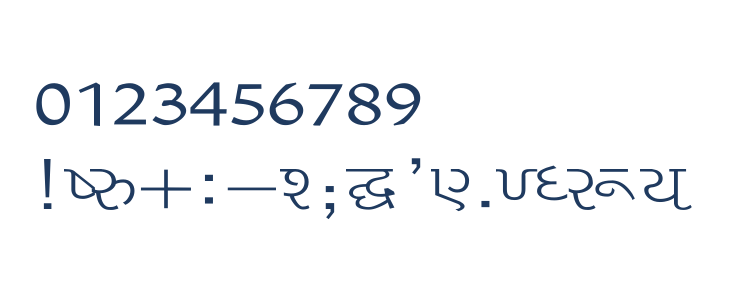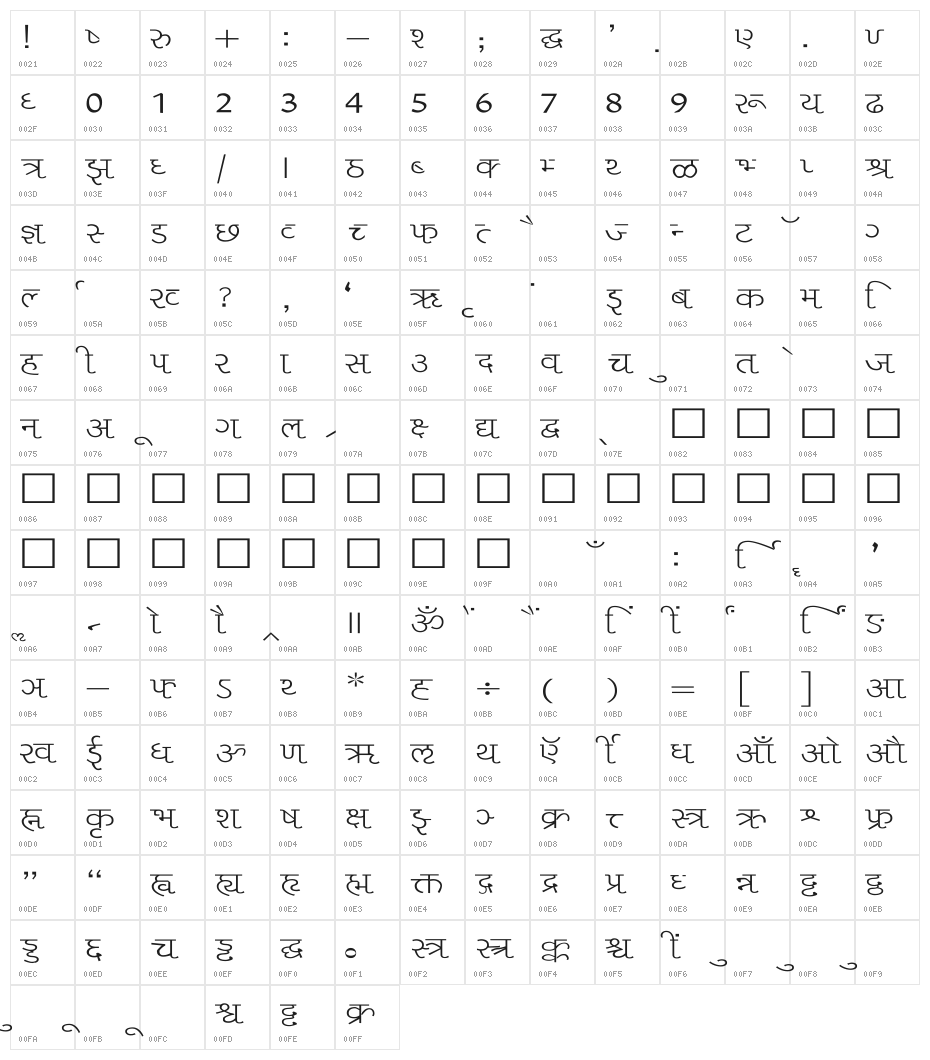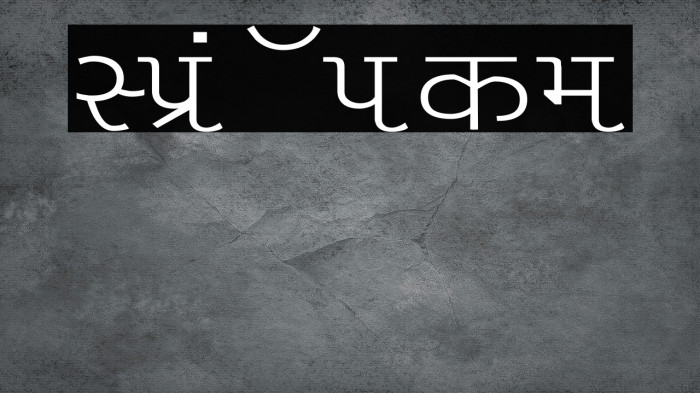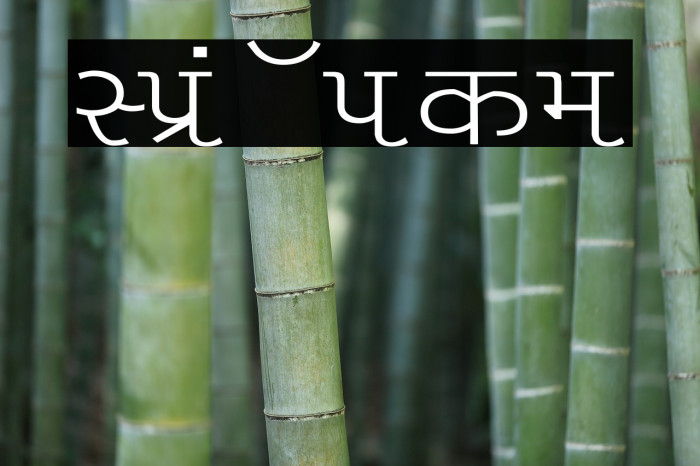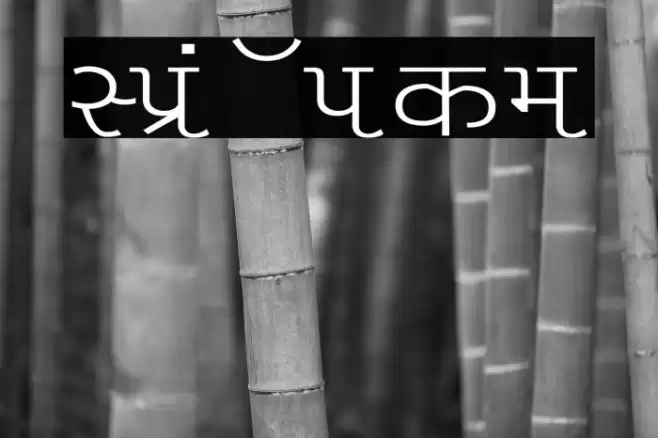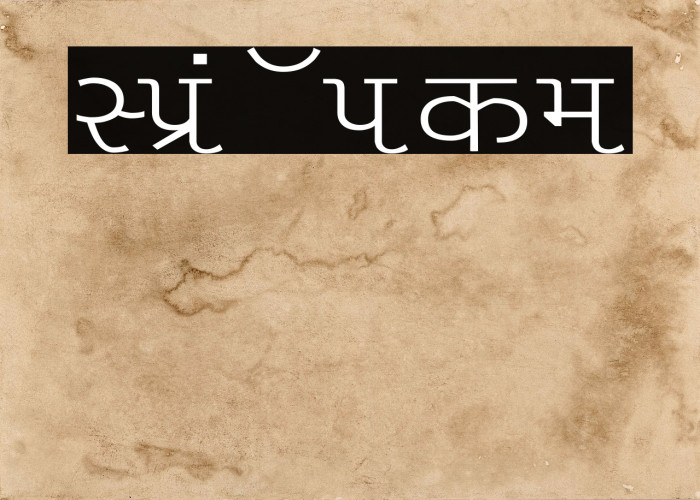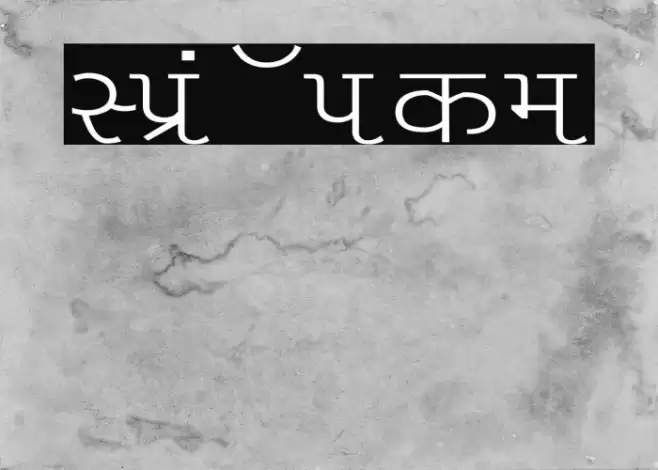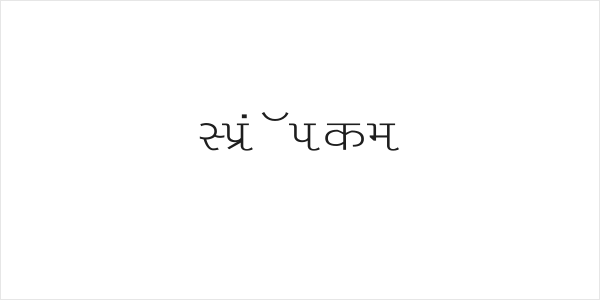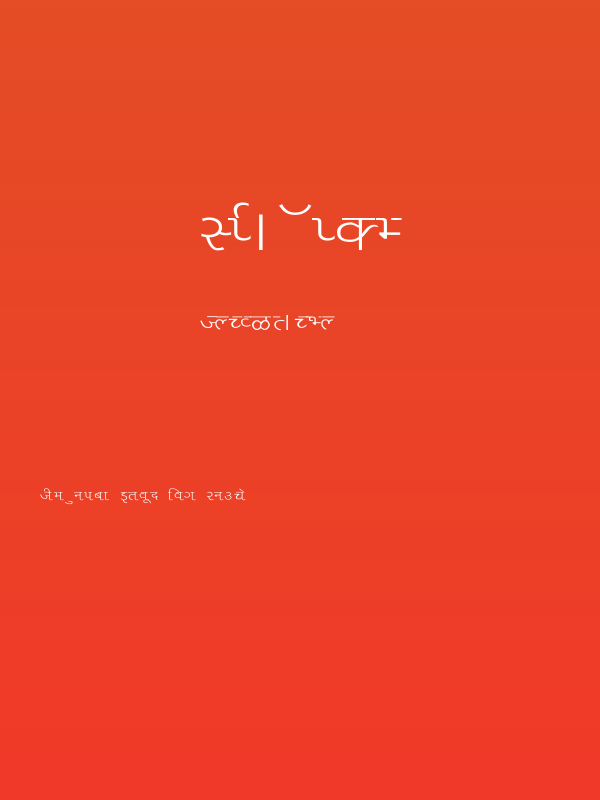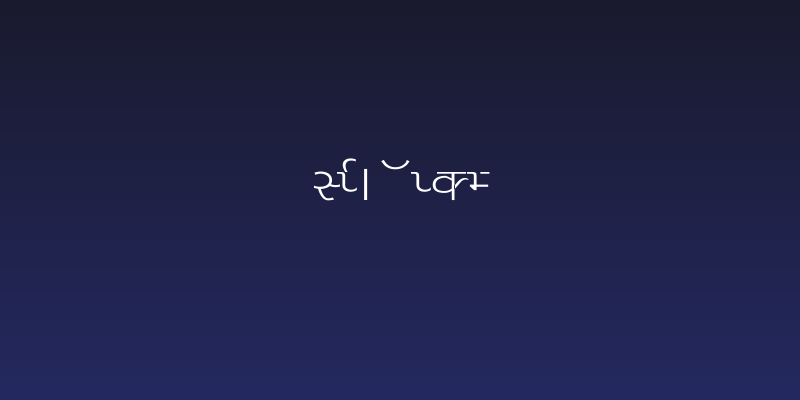
Liza Wide Font
Liza Wide Description
This font features a distinctive and elegant design with a focus on traditional Indian script styles. The characters are crafted with a balance of curves and sharp edges, providing a harmonious blend of modern and classic elements. The numerals are clear and legible, maintaining consistency with the overall aesthetic. Special characters are thoughtfully integrated, enhancing the font's versatility. The font's unique style makes it suitable for a variety of applications, from cultural projects to modern design tasks.
| Use Case | Headlines, Artistic projects, Cultural publications |
| Proposed Projects | Ideal for cultural publications, educational materials, branding for Indian-themed products, and artistic projects. |